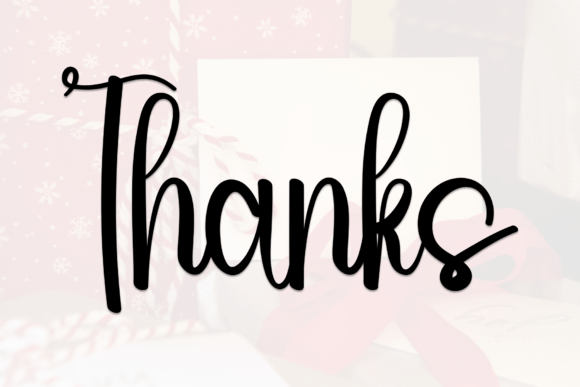
Introduction to Merry Newyear Font Font
Fonts play a crucial role in design, and the Merry Newyear Font font is a typeface that brings both character and versatility to any project. Whether you’re working on a branding project, a website, or a print design, the Merry Newyear Font font offers a unique style that can elevate your work.
Ring in the festivities with Merry Newyear , a beautifully balanced Handwriting Script that conveys elegance and genuine warmth.
Characterized by its tall, slender letterforms and graceful, flowing connections, this font is perfect for high-impact titles that still feel personal It’s the ultimate choice for designing classy holiday greeting cards , festive New Year’s Eve party invitations, elegant Christmas gift tags, seasonal blog headers, and branded materials for winter events.
Why Choose Merry Newyear Font Font?
The Merry Newyear Font font is more than just a typeface – it’s a design tool that helps you communicate your message with style and clarity. Its unique character set and versatile design make it suitable for a wide range of applications, from elegant invitations to bold headlines.
With its carefully crafted letterforms and balanced proportions, the Merry Newyear Font font ensures readability and visual appeal across all mediums.
What makes Merry Newyear Font font special?
The Merry Newyear Font font stands out with its unique design, exceptional readability, and versatility across various design applications.